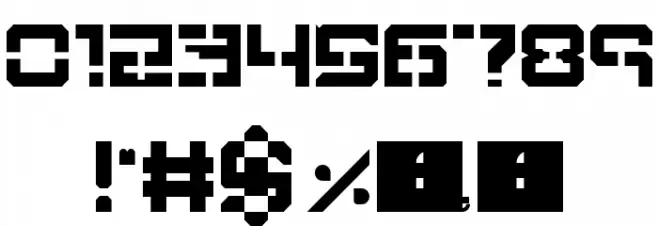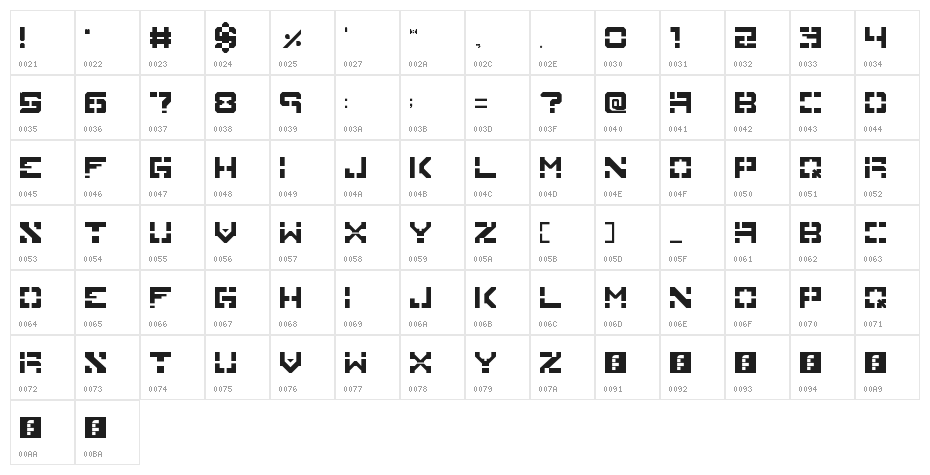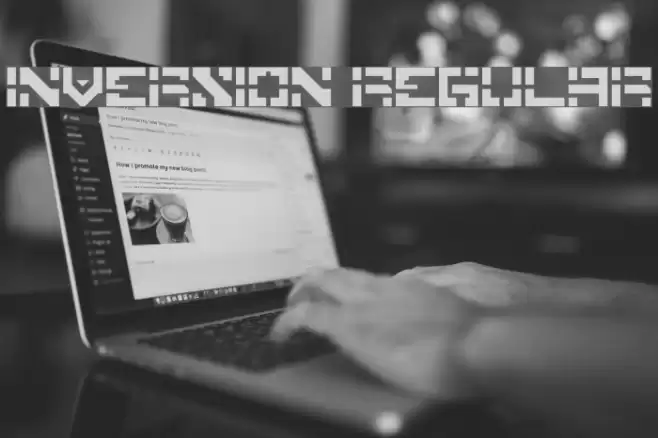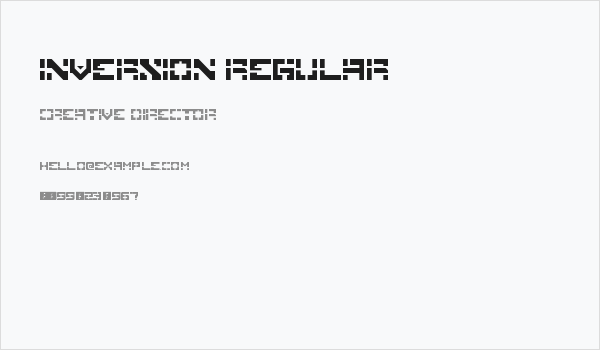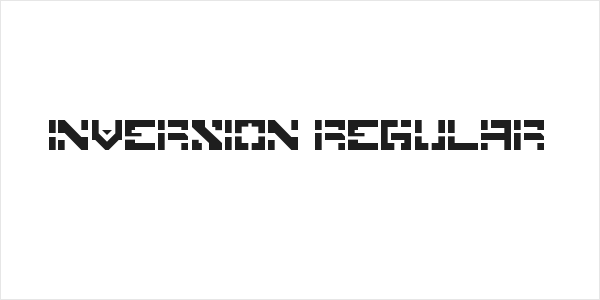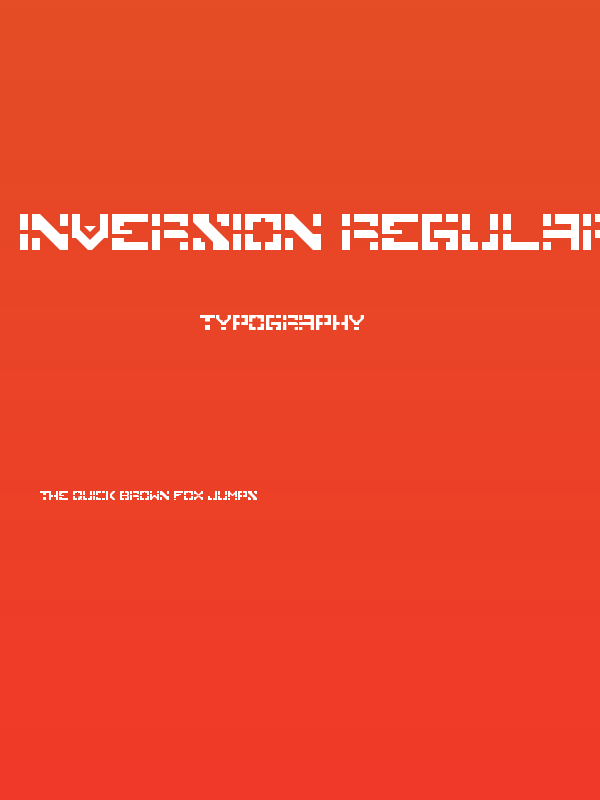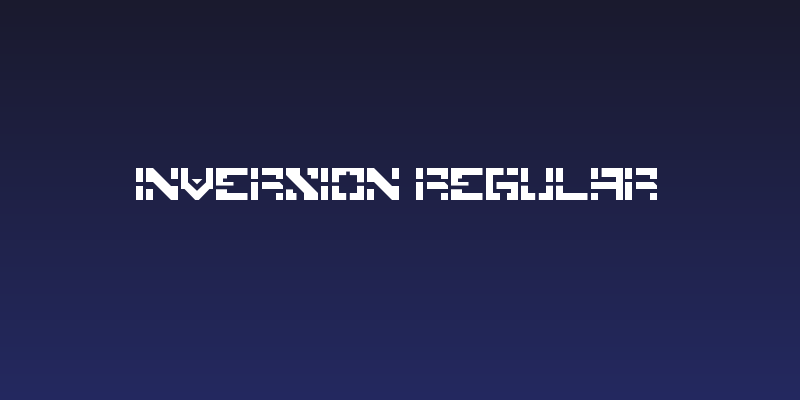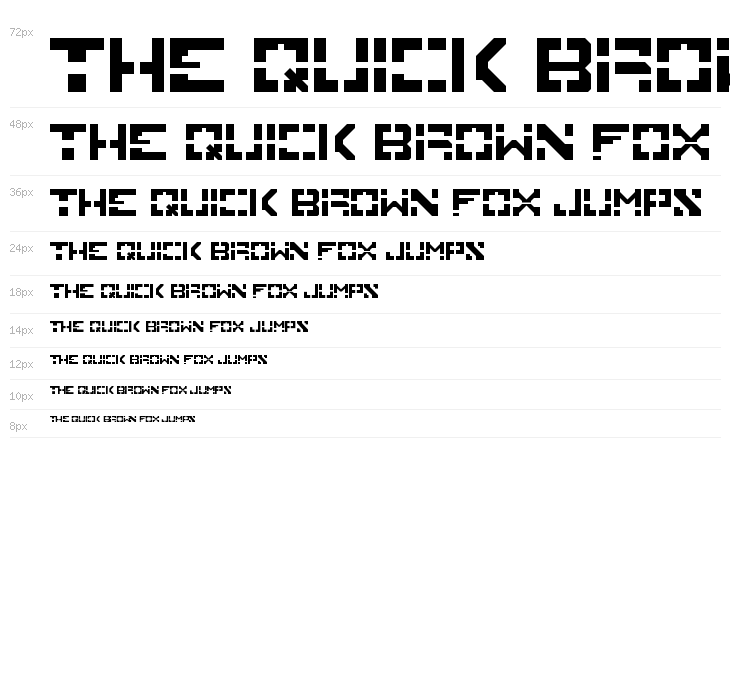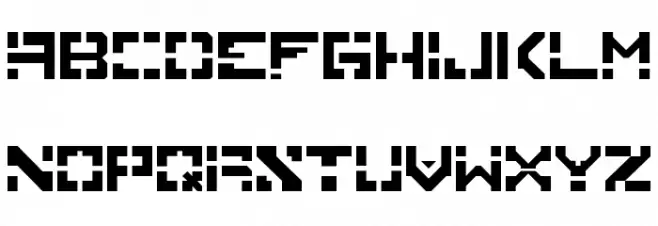
Inversion Regular Font
Inversion Regular Description
This font features a bold, geometric design with a futuristic and digital aesthetic. Each character is constructed with a series of blocky, angular shapes, creating a sense of movement and energy. The uppercase and lowercase letters maintain a consistent style, with sharp edges and a uniform thickness throughout. Numbers and special characters are designed to match the overall theme, ensuring a cohesive look across all text. The font's unique style makes it stand out, ideal for projects that require a modern and tech-savvy appearance.
| Use Case | Logos, Headlines, Digital interfaces |
| Proposed Projects | Ideal for tech-related branding, digital art, video game interfaces, and modern poster designs. |